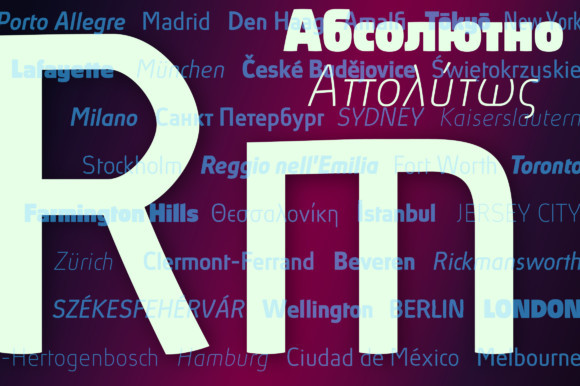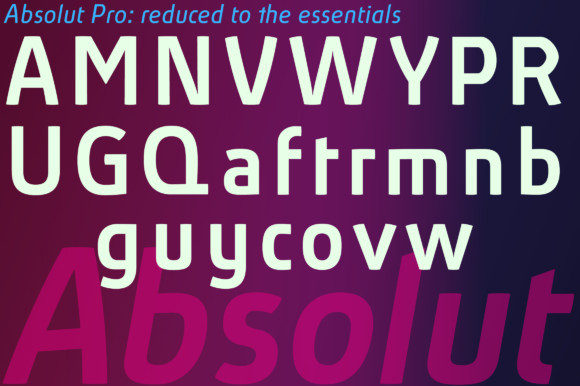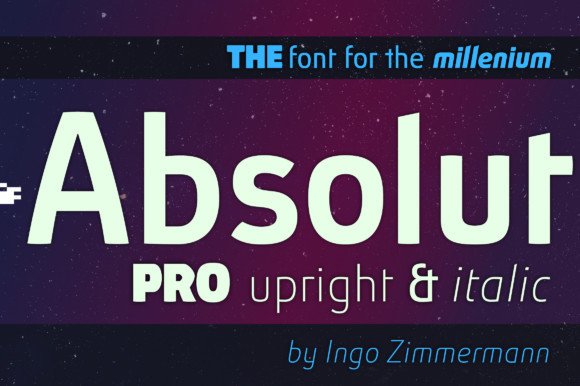
Absolut Pro Upright & Italic font
Absolut is a modern sans serif without compromise. The forms of Absolut are unconditionally modern, and will turn any design idea into a bold stand out!